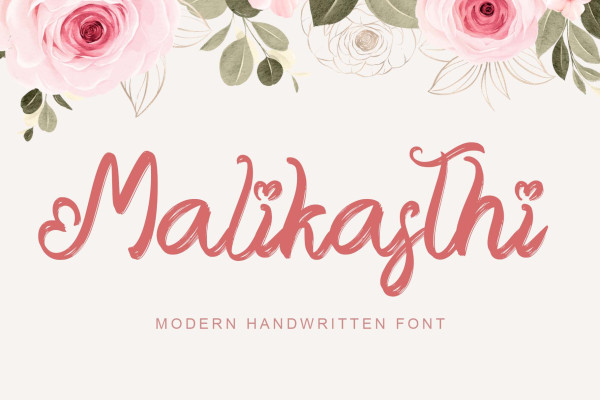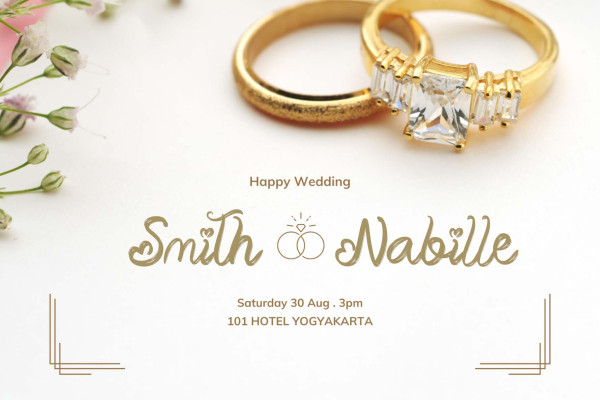
Malikasthi Script Font
Malikasthi Script Font is an elegant and beautiful brushed handwriting font. This font is equipped with uppercase, lowercase, numerals, punctuation, and multilingual support. It is suitable for weddings, engagements, business branding, stickers, banners, branding, posters, valentines, back to school, and others.